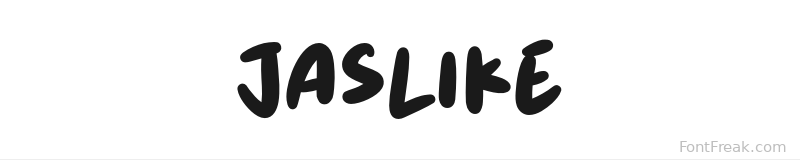
Jaslike
About Jaslike
The Jaslike font by MJType is a captivating display typeface that seamlessly blends modern aesthetics with a touch of creativity. This font is characterized by its bold strokes and a playful yet refined design, offering a perfect balance of legibility and artistic flair. With a medium stroke weight and a moderate contrast, Jaslike presents an inviting visual appeal that makes it stand out in various applications. The spacing between characters is thoughtfully designed to enhance readability while maintaining a cohesive look, making it ideal for both headlines and body text.
Best suited for creative projects, the Jaslike font excels in a variety of contexts. It is particularly effective for wedding invitations, where its elegant yet informal style adds a personal touch. Additionally, it works wonderfully on movie posters, capturing attention with its unique charm. Restaurant menus can also benefit from the font's inviting nature, making dishes feel more enticing. Furthermore, small business owners can utilize Jaslike in branding materials, ensuring their identity remains memorable and distinctive. Content creators will find it an excellent fit for social media graphics, where eye-catching typography can significantly enhance engagement.
The target audience for the Jaslike font includes graphic designers looking for fresh, versatile typefaces, small business owners aiming to create impactful branding, and content creators who prioritize visual storytelling in their projects. What truly makes the Jaslike font stand out is its ability to combine approachability with an artistic edge, making it an excellent choice for anyone seeking to elevate their design work. With its availability as a Jaslike font free download, this typeface is an accessible option for those looking to add a unique touch to their projects without compromising on quality.